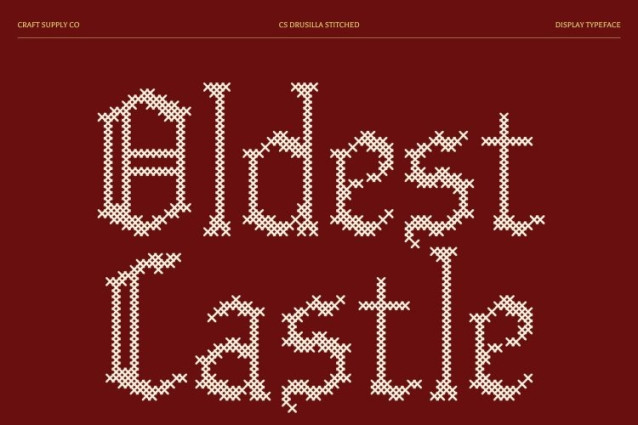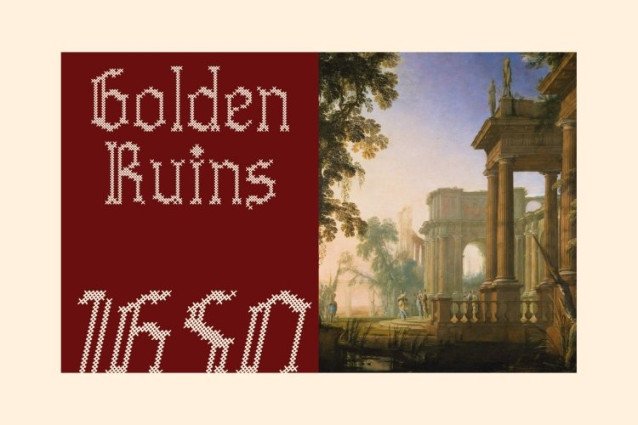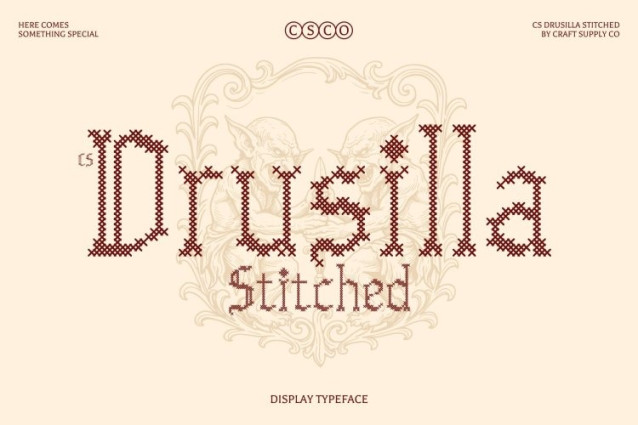
CS Drusilla Stitched Font
CS Drusilla Stitched Font – This font merges the dramatic flair of traditional blackletter with a contemporary, streamlined aesthetic. Its sharp angles, broken strokes, and rhythmic forms honor Gothic calligraphy while introducing cleaner geometry and minimalist refinement creating a bold, modern typeface that stands out in today’s design landscape.
Minimalist Form with Bold Personality
Stripping away unnecessary complexity, this font offers a balanced silhouette with improved legibility and controlled spacing. This blend of heritage and modernity delivers a font that is both commanding and accessible, maintaining the intensity of blackletter while embracing contemporary design principles.
Edgy Style for Artistic Expression
With angular shapes and dynamic rhythm, this is ideal for creative projects that push boundaries. Its strong personality makes it perfect for music branding, underground zines, conceptual posters, and fashion campaigns seeking bold visual impact.
Perfect for Modern Gothic Aesthetics
From rebellious editorials to standout merchandise and avant-garde branding, this font revitalizes blackletter tradition with modern sharpness and expressive flair. It’s the ideal choice for designers who want to make a dramatic, contemporary statement while paying homage to historic craftsmanship.